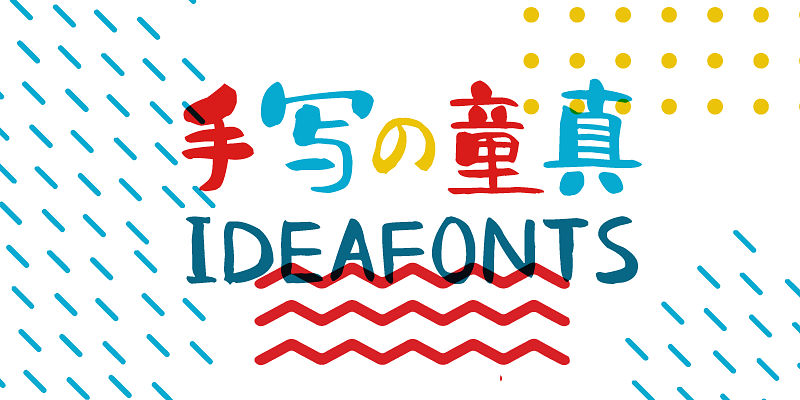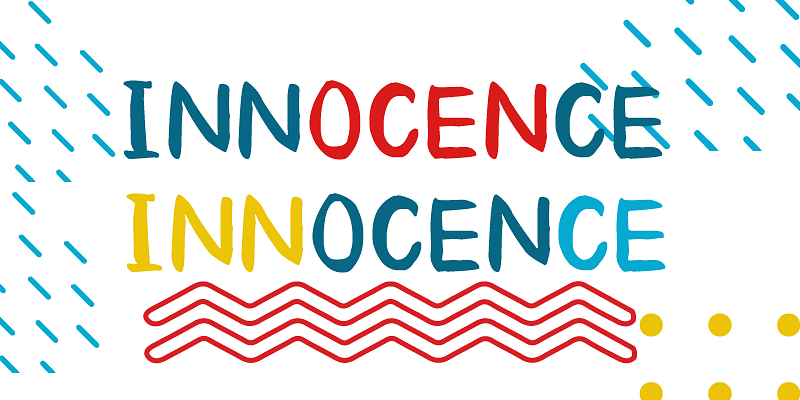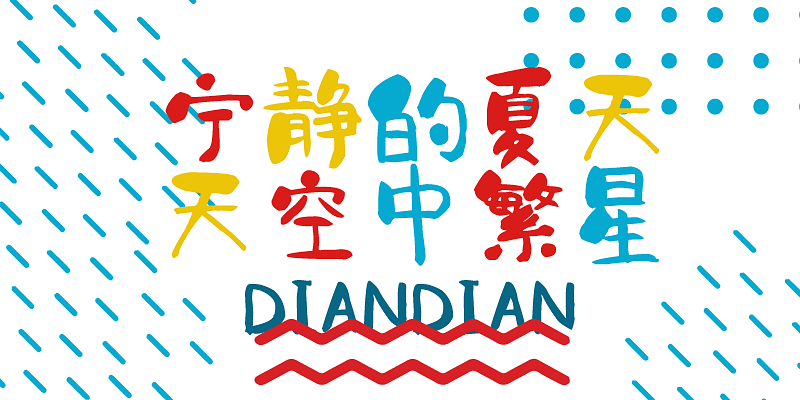
HelloFont ID ShouXieTongZhenTi is a font with a comfortable hand-written and intimate feel. Thick and thin strokes are alternately interspersed, making it lively and lovely, relaxed and natural.